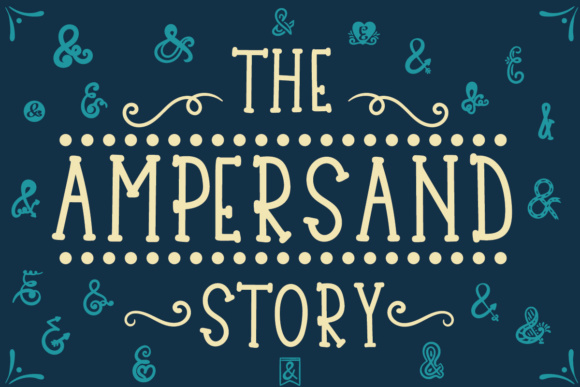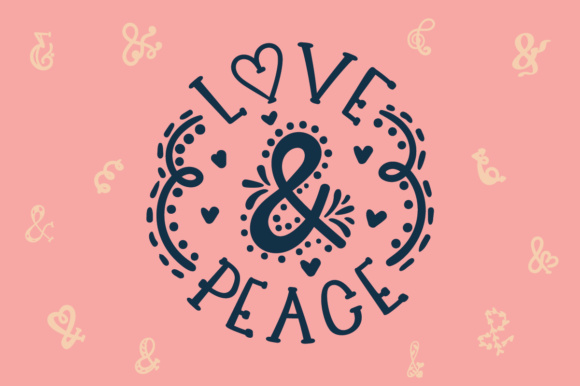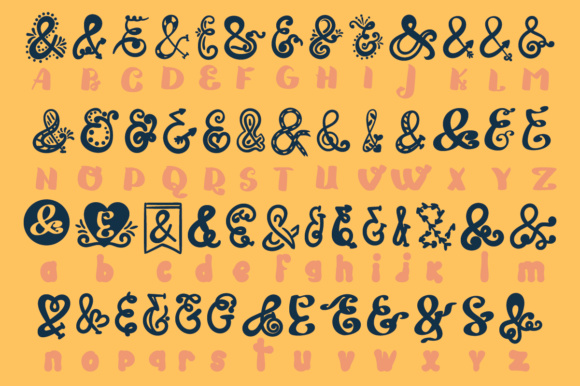
The Ampersand Story Font
About The Ampersand Story Font
The Ampersand Story is a fun little font containing lots of unique, hand-drawn ampersand (&) symbols.
Use the Ampersand Story in any project to add a nice extra decorative touch.